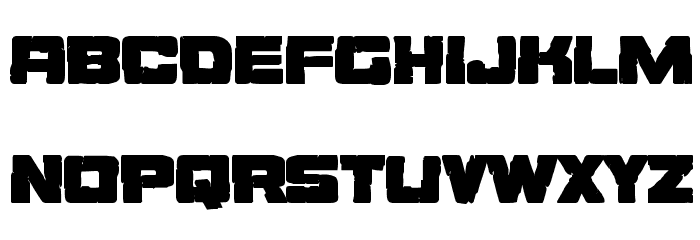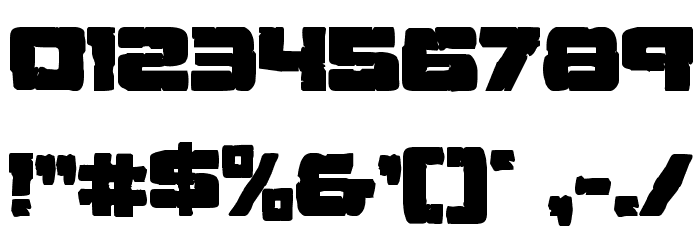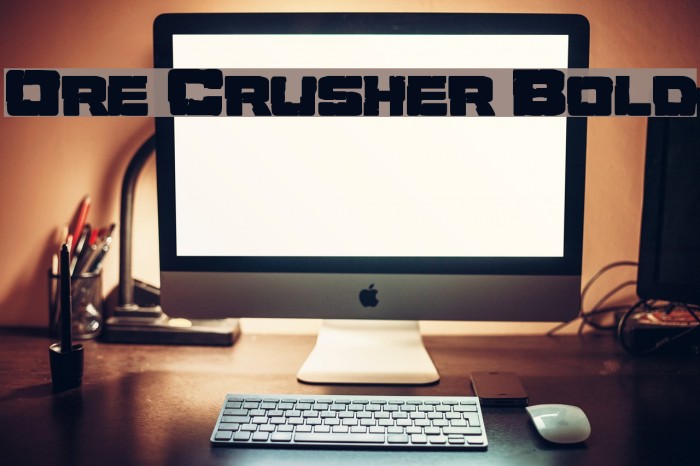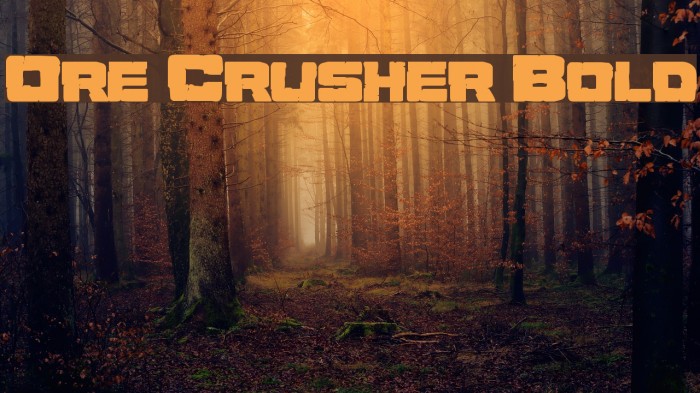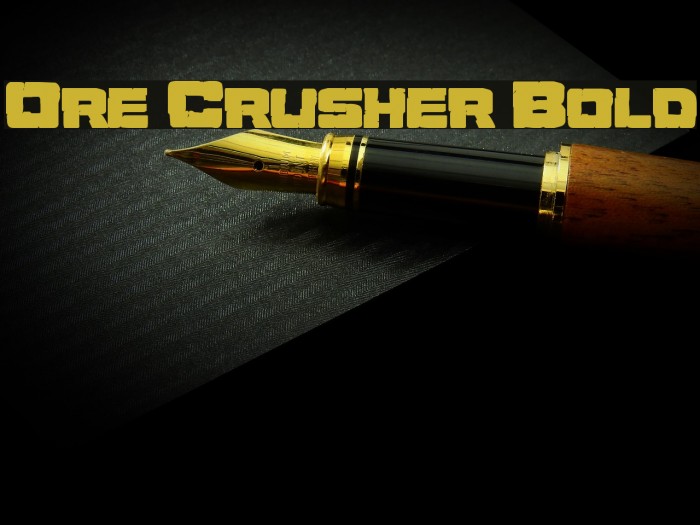
Ore Crusher Bold Font
This font features a bold, industrial design with a rugged and distressed appearance. The characters are blocky and robust, giving off a strong, heavy-duty vibe. The edges are uneven and rough, resembling the texture of worn metal or stone, which adds to its gritty aesthetic. The uppercase and lowercase letters maintain a consistent style, with a uniform height and width that emphasizes their boldness. The numbers and special characters follow the same design principles, ensuring a cohesive look across all elements. This font is ideal for projects that require a tough, impactful presence.
A bold, industrial font with a rugged, distressed appearance.
- Proposed Projects: Ideal for branding in construction, automotive, or heavy machinery industries, as well as for posters, logos, and video game titles that require a strong, industrial feel.
- Overall Style: Industrial, Rugged
- Use Case: Logos, Posters, Branding